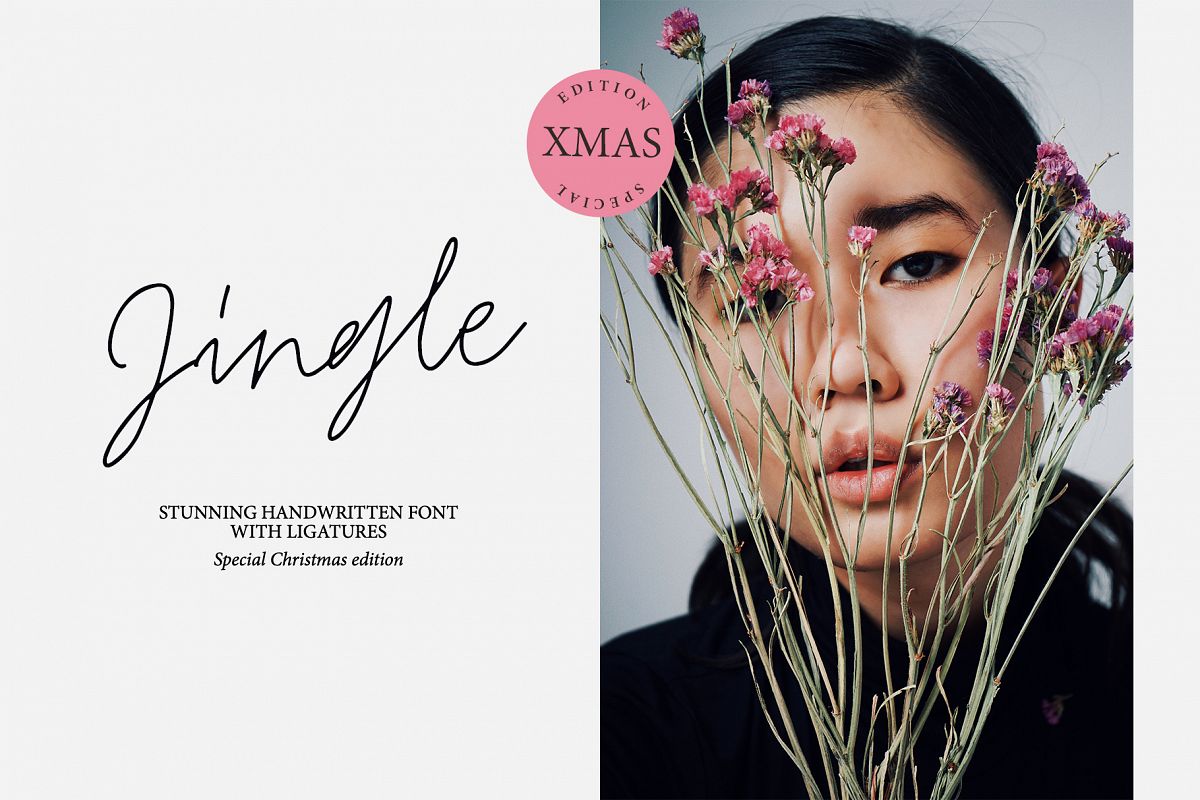
Jingle Christmas handwritten font
Jingle-Regular
This holiday font was inspired by the game with different signature styles! The result is a light and nice, mono linear font that looks completely handdrawn.
Jingle
will look beautiful on Christmas and holiday invitations, wedding invites and stationery, logos, and more. I love using it for emphasis words and pairing it with sans serifs